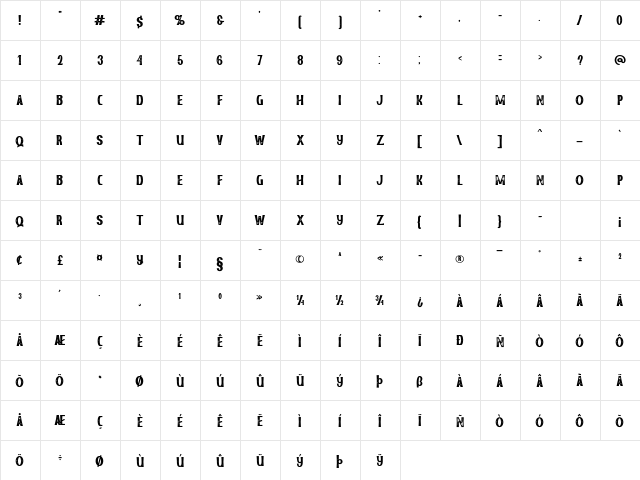
Bronxi Stamp
| Style | Stamp |
| Foundry | FallenGraphic |
| Designer | Vava Aryanto |
Design Context for Bronxi Typeface
Bronxi has the rough pragmatism of spray-painted stencil signage, adding a raw, street-level authenticity to designs.
Ideal for industrial branding, streetwear, military-adjacent aesthetics, and urban signage projects.
Pro Tip: Pair Bronxi with raw, utilitarian design elements — exposed concrete textures, flat colour, and minimal ornamentation suit it well.